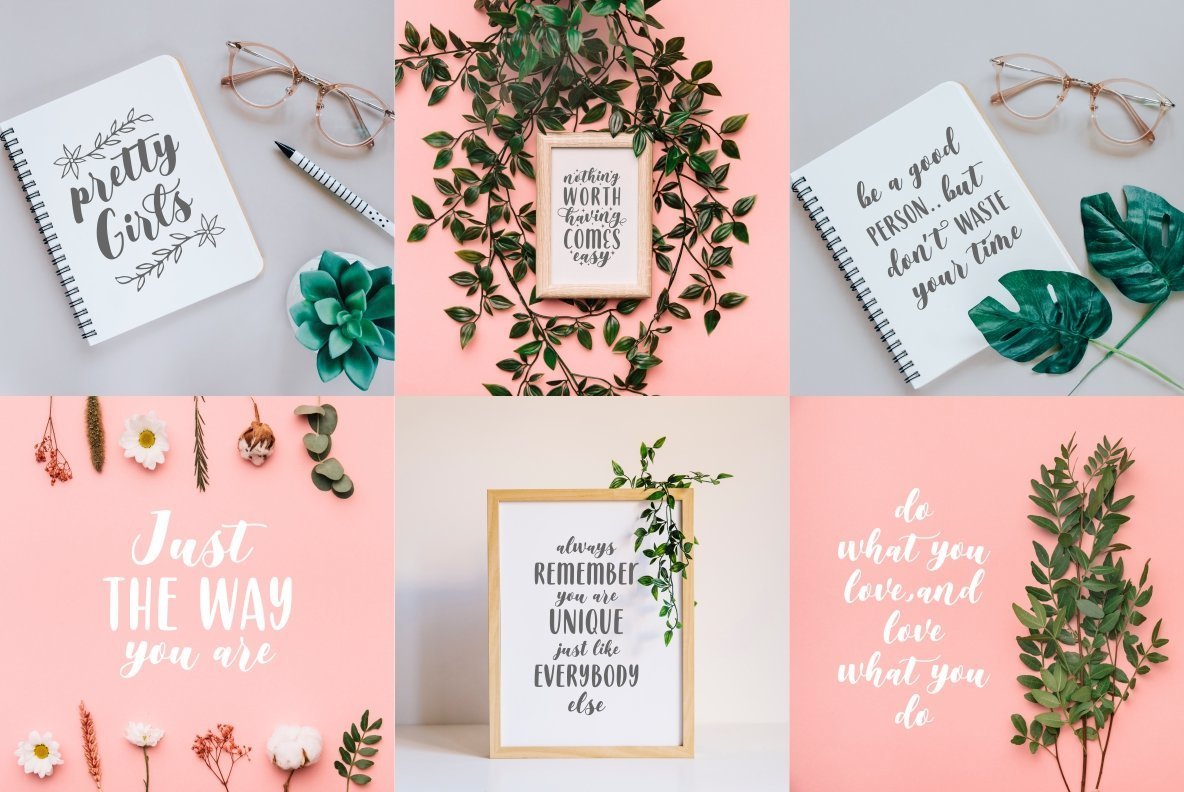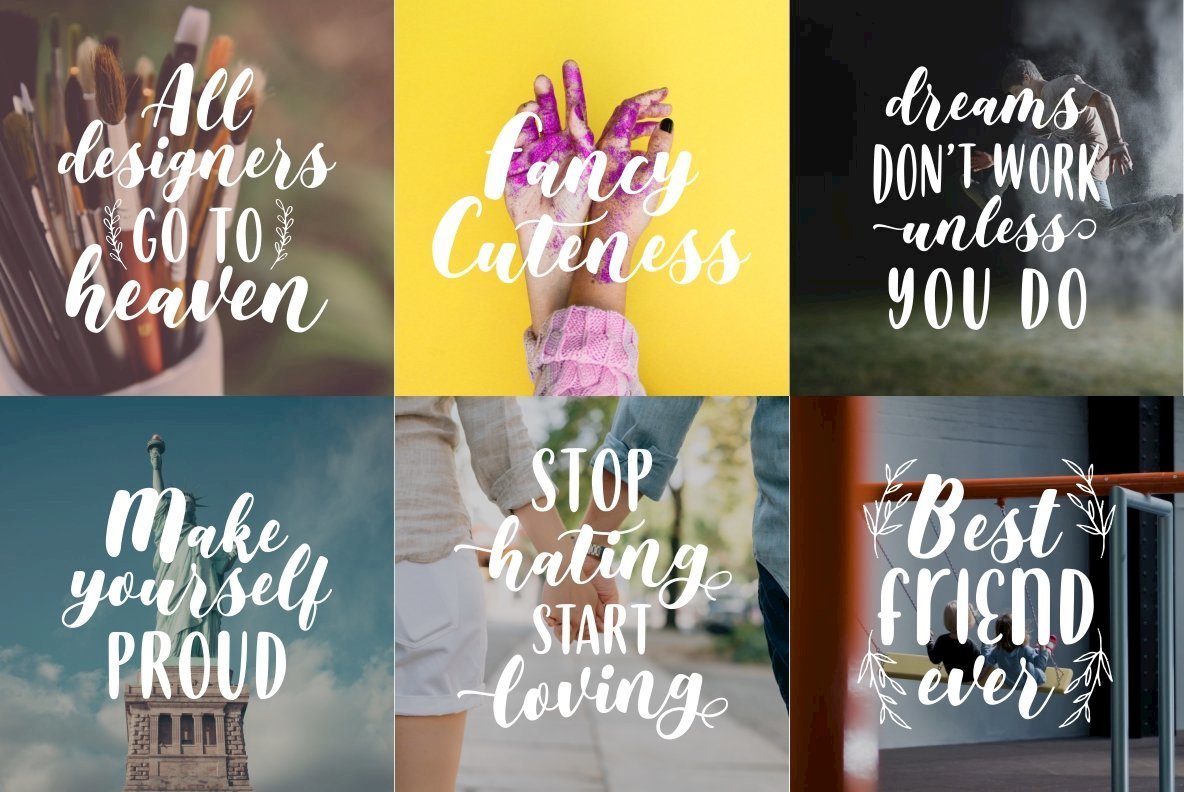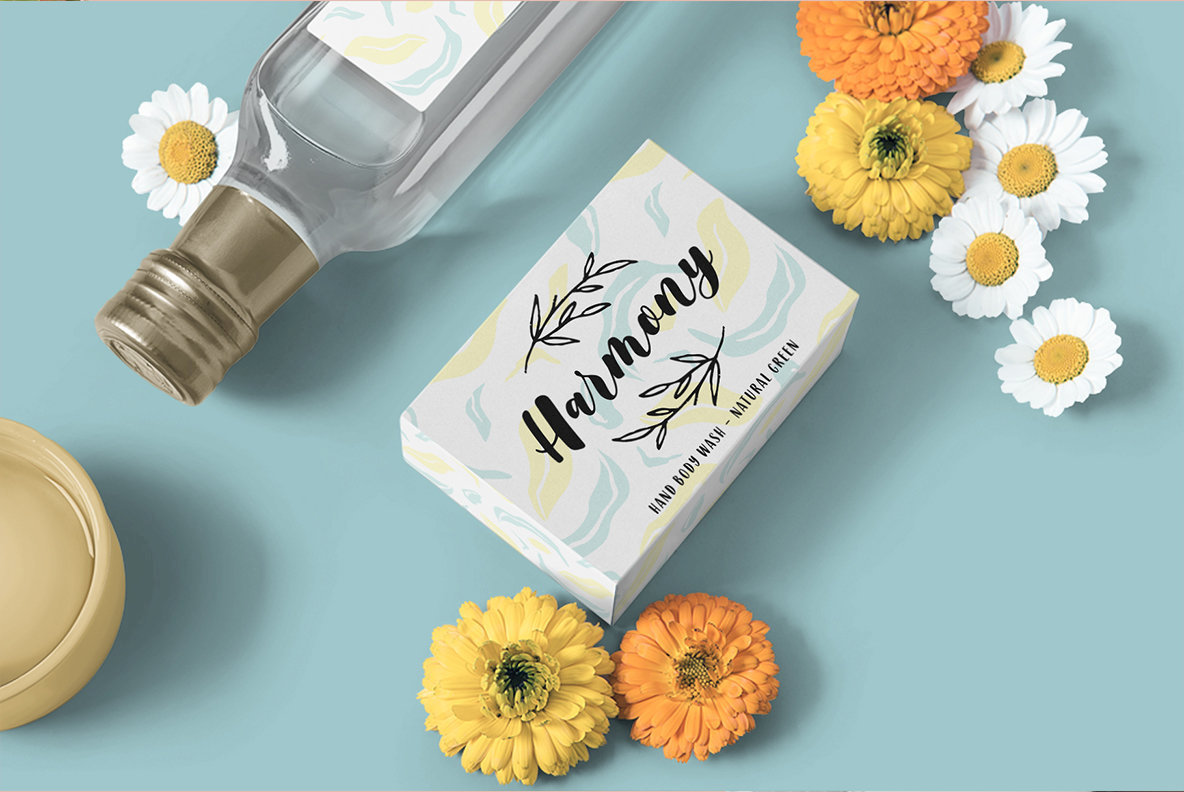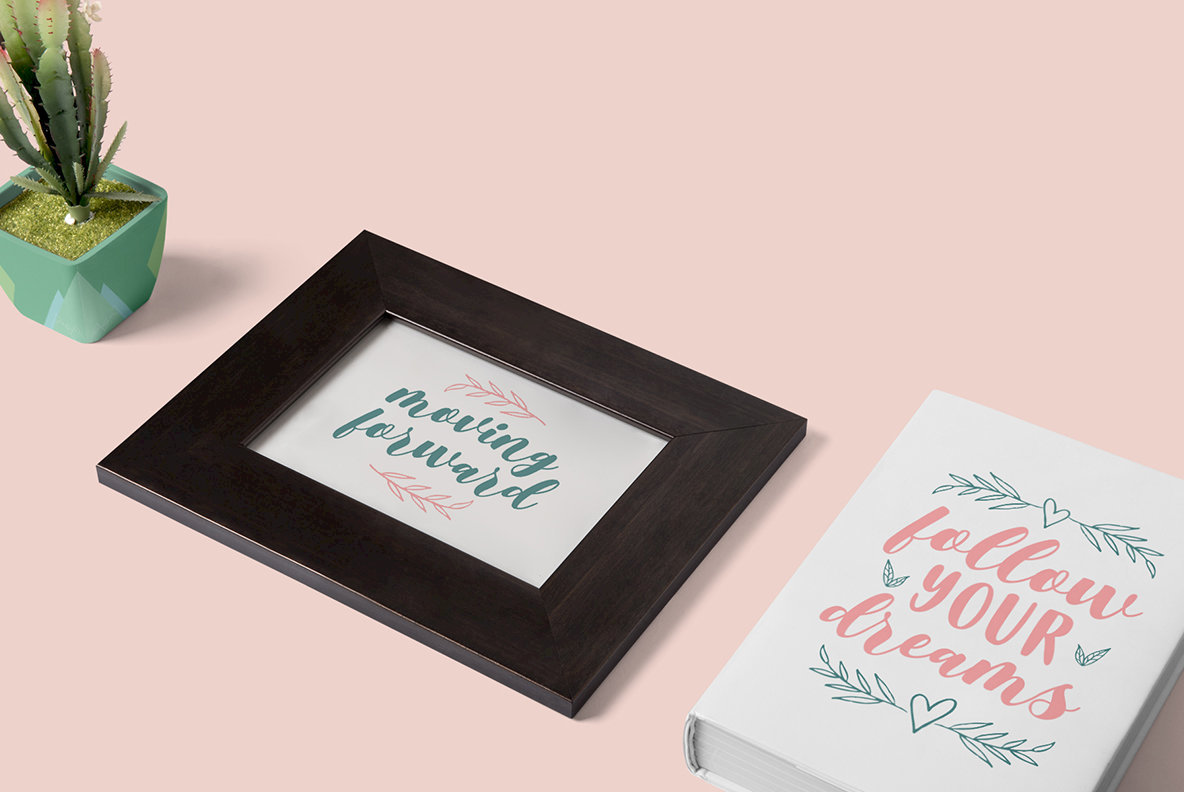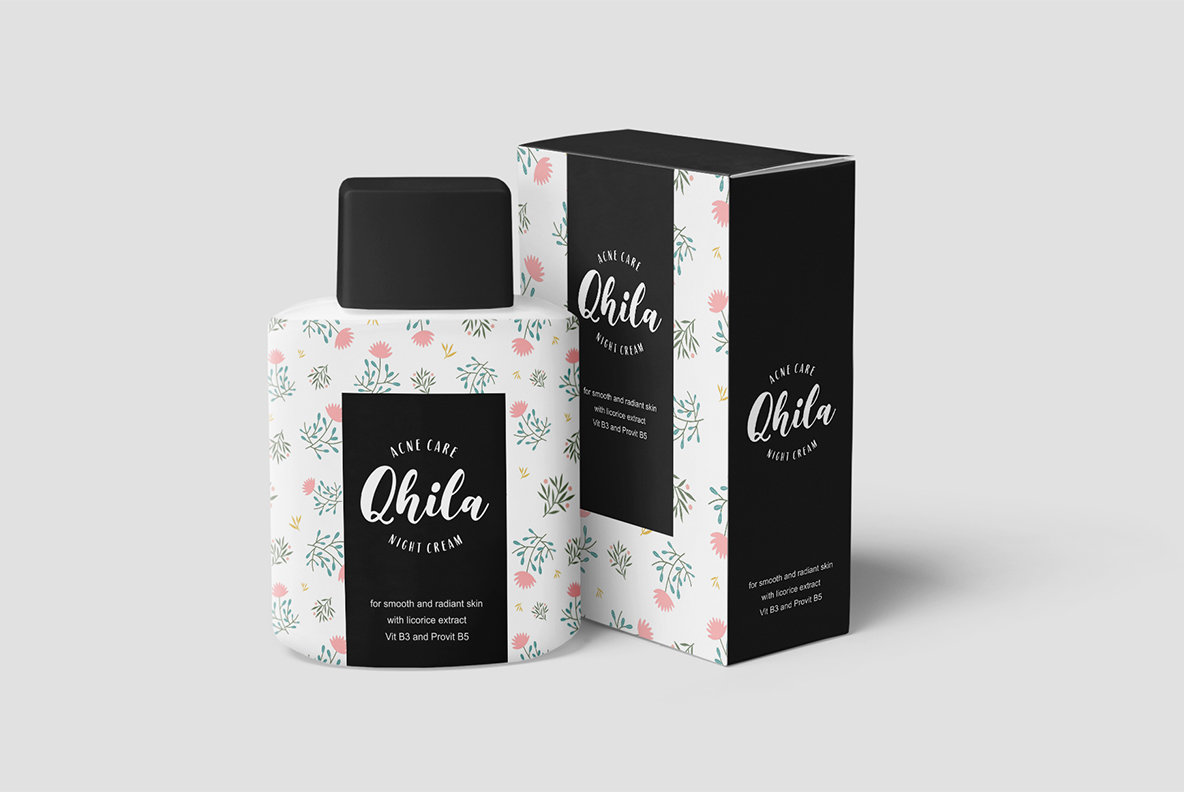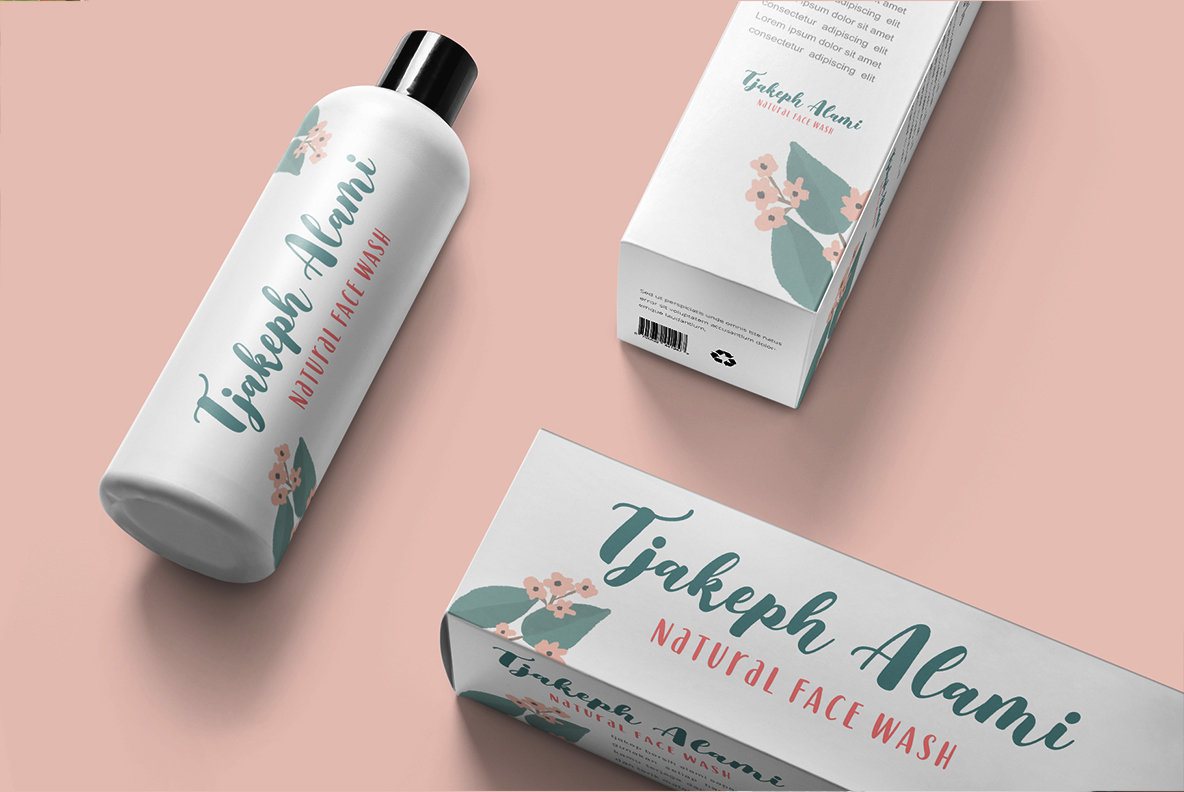
Clarisha Font
Clarisha, a stylish font collection, marries the elegance of modern calligraphy with versatile design elements. This family includes three distinct styles—Clarisha Script, Clarisha Sans, and Clarisha Ornament—providing a comprehensive suite for your creative projects. Its refined script pairs effortlessly with the clean lines of the sans serif, all complemented by ornamental details. Each typeface offers stylistic alternates for uppercase and lowercase characters, along with ligatures that lend a natural, casual flair to your designs. Whether crafting a logotype, designing invitations, or embellishing a book cover, Clarisha's harmonious elements enhance your work with a touch of sophistication and flexibility.Clarisha: Modern Calligraphy Font Family